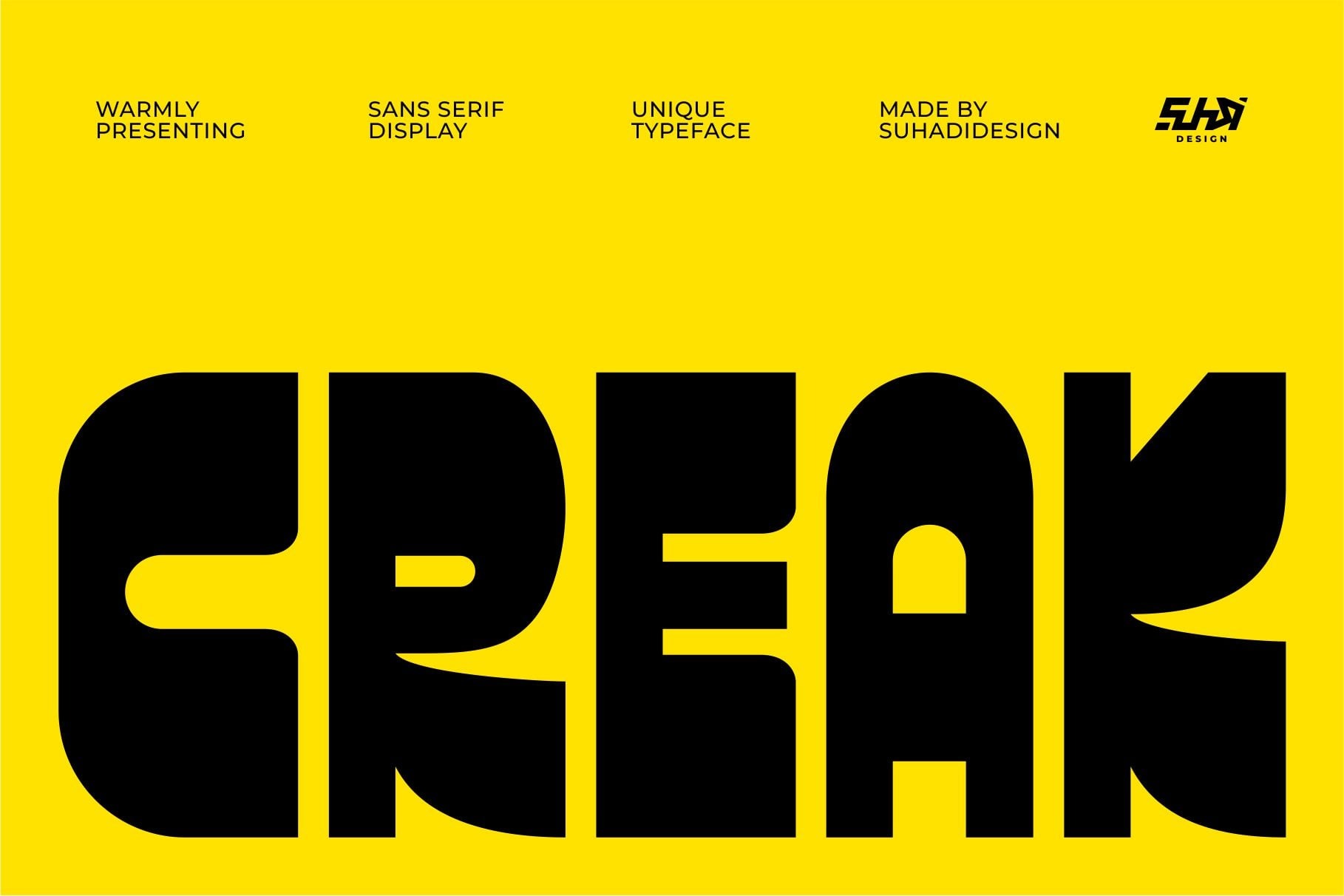
Creak – Bold Sans Font
Creak – Bold Sans Font is a premium-quality font developed to enhance your work with a polished, modern, and visually elevated look. Creak is a sans serif display font, expected to be a market favorite. We’ve kept this font elegant, classy, modern, stylish, contemporary, and easy to use. Creak is the perfect choice for packaging, logos, labels, brands, magazines, book covers, shopping bags, fashion, posters, banners, bags, branding, fashion, brand names, branding, quotes, and other projects. Creak is here to take your designs to the next level.